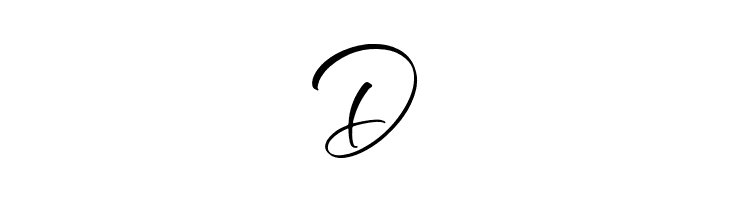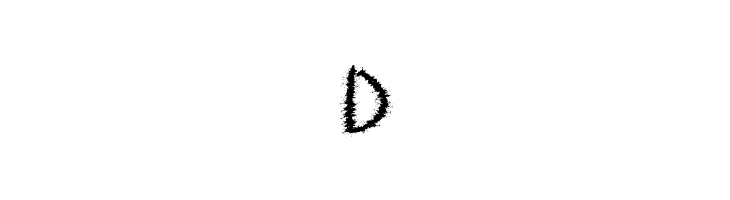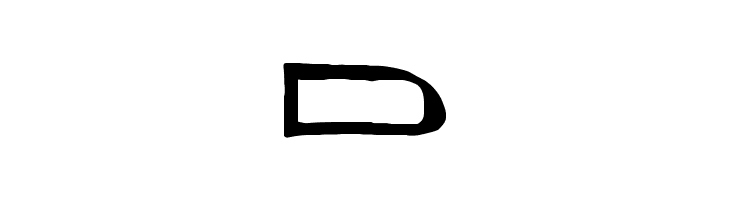
• Aggressive Angry Baby Killer
• Aggressor
( Nermin Kahrimanovic - www.behance.net/nermink )
A modern, angular font with a futuristic and edgy design.
• Aggressor Outline
( Nermin Kahrimanovic - www.behance.net/nermink )
A futuristic outline font with sharp angles and geometric forms.
• AggressorsBatsRound
Abstract, organic shapes with dynamic lines and high contrast.
• Äggstock
( Fonts by TarmSaft Font Factory - http://www.aska.nu/tarmsaft/ )
A bold, handwritten font with dynamic and expressive strokes.
• ÄggstockGravid
( Fonts by TarmSaft Font Factory - http://www.aska.nu/tarmsaft/ )
A bold, playful handwritten font with thick strokes and dynamic flow.
• Aghara Pro
( Typopey - Reand Aghara - facebook.com/typopey )
A bold, futuristic font with sharp angles and geometric shapes.
• Aghara Std
( Typopey - Reand Aghara - facebook.com/typopey )
A bold, futuristic font with sharp angles and geometric shapes.
• Aghara Wide
( Typopey - Reand Aghara - facebook.com/typopey )
A bold, futuristic font with wide, angular letterforms and a sleek, modern aesthetic.
• Aghessta
( Fonts by Riki )
A lively, cursive font with a handwritten, elegant style.
• Aghila
A modern, geometric font with a sleek and minimalist design.
• Aghila
A sleek, modern font with geometric and minimalist design.
• Aghmeeta Demo
A whimsical and artistic script font with flowing, cursive forms.
• Aghnestademo
A graceful and elegant script font with flowing, interconnected letters.
• Aghnestademo Sans
A modern, geometric sans-serif font with a sleek and minimalist design.
• Aghnestademo Sans
A modern, geometric font with clean lines and a minimalist style.
• Aghnestademo Signature